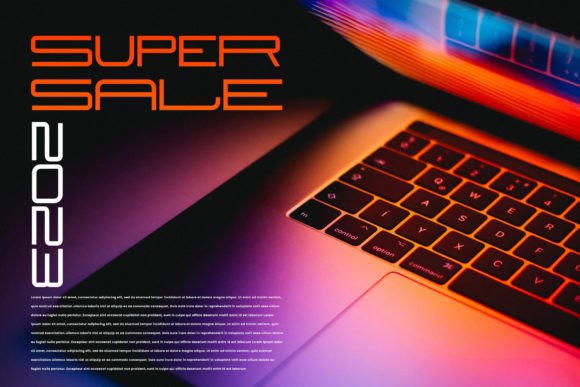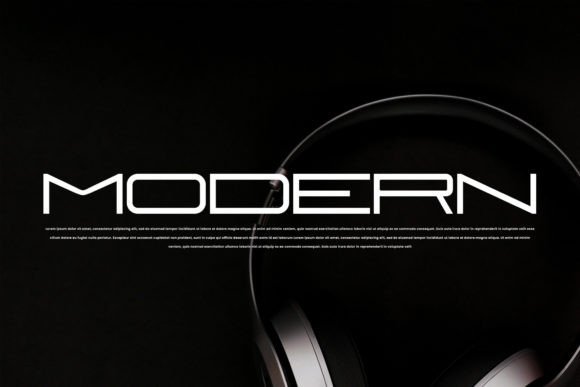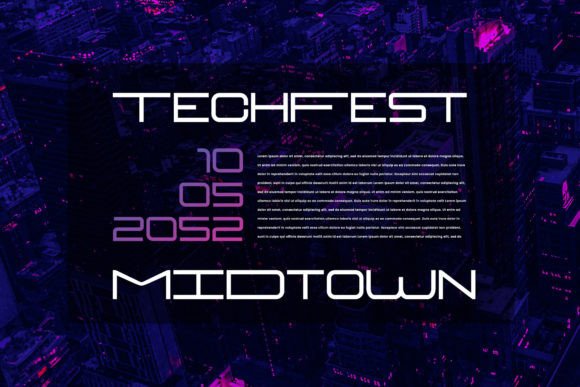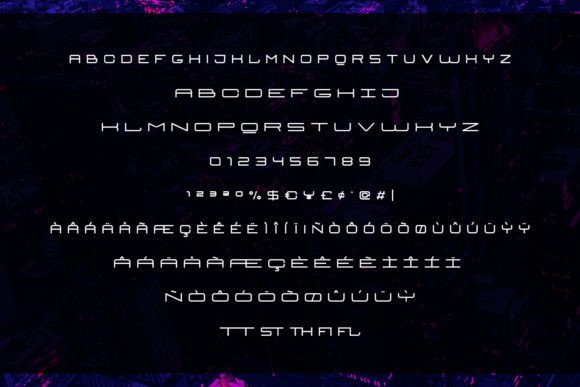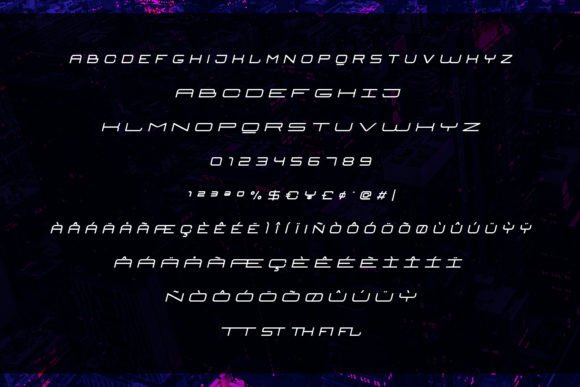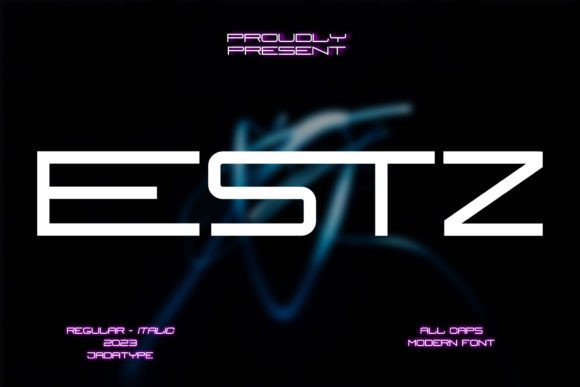
Introducing Estz Font: The Modern All-Caps Typeface for Bold Designs
Are you a designer or craft looking for a font that exudes modernity and sophistication? Look no further than Estz Font, an all-caps typeface that is perfect for creating bold and eye-catching designs. With its clean lines, sleek aesthetic, and futuristic vibe, Estz Font is ideal for a wide range of applications, from branding and logotypes to social media graphics and product packaging.
What is Estz Font?
Estz Font is a modern all-caps font that is designed to make a statement. Its unique blend of geometric shapes and elegant lines creates a distinctive look that is both stylish and versatile. Whether you’re looking to create a bold logo, a striking social media graphic, or a futuristic product design, Estz Font is the perfect choice.
Key Features of Estz Font
• All-caps design: Estz Font is an all-caps typeface, making it perfect for creating bold and attention-grabbing designs.
• Modern feel: With its sleek lines and geometric shapes, Estz Font has a distinctly modern feel that is perfect for contemporary designs.
• Versatile: Estz Font is suitable for a wide range of applications, from branding and logotypes to social media graphics and product packaging.
• Futuristic vibe: Estz Font’s unique blend of geometric shapes and elegant lines gives it a distinctly futuristic feel that is perfect for technology-related designs.
Use Cases for Estz Font
Estz Font is a versatile typeface that can be used in a wide range of applications, including:
• Branding: Estz Font is perfect for creating bold and eye-catching logos that make a statement.
• Logotype: Estz Font’s sleek lines and geometric shapes make it ideal for creating modern and sophisticated logotypes.
• Technology: Estz Font’s futuristic vibe makes it perfect for technology-related designs, such as software logos, app icons, and website headers.
• Social media: Estz Font is perfect for creating striking social media graphics that grab attention and stand out from the crowd.
• Product packaging: Estz Font’s modern feel and sleek aesthetic make it ideal for product packaging designs that need to stand out on store shelves.
Why Choose Estz Font?
There are many reasons why Estz Font is the perfect choice for designers and crafters, including:
• Unique design: Estz Font’s unique blend of geometric shapes and elegant lines sets it apart from other typefaces.
• Versatility: Estz Font can be used in a wide range of applications, from branding and logotypes to social media graphics and product packaging.
• Modern feel: Estz Font’s sleek lines and geometric shapes give it a distinctly modern feel that is perfect for contemporary designs.
In conclusion, Estz Font is a modern all-caps typeface that is perfect for designers and crafters looking to create bold and eye-catching designs. With its unique design, versatility, and modern feel, Estz Font is ideal for a wide range of applications, from branding and logotypes to social media graphics and product packaging. Whether you’re looking to create a striking logo, a futuristic product design, or a bold social media graphic, Estz Font is the perfect choice.